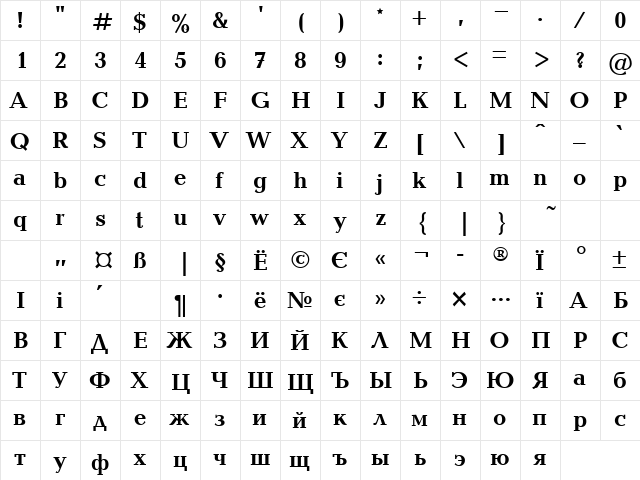
UkrainianBaltica Bold
Design Context for UkrainianBaltica Typeface
UkrainianBaltica is a composed and adaptable typeface that performs quietly and consistently across a wide range of design contexts. Its bold stroke weight gives it real presence on the page.